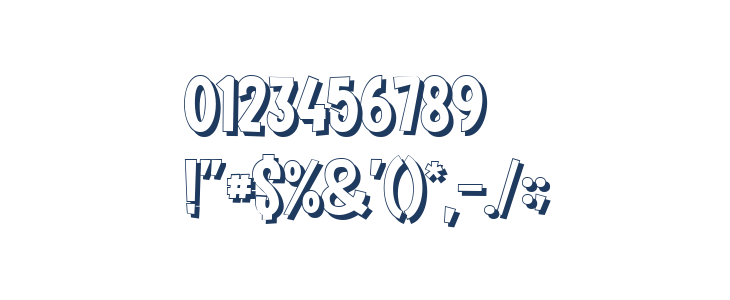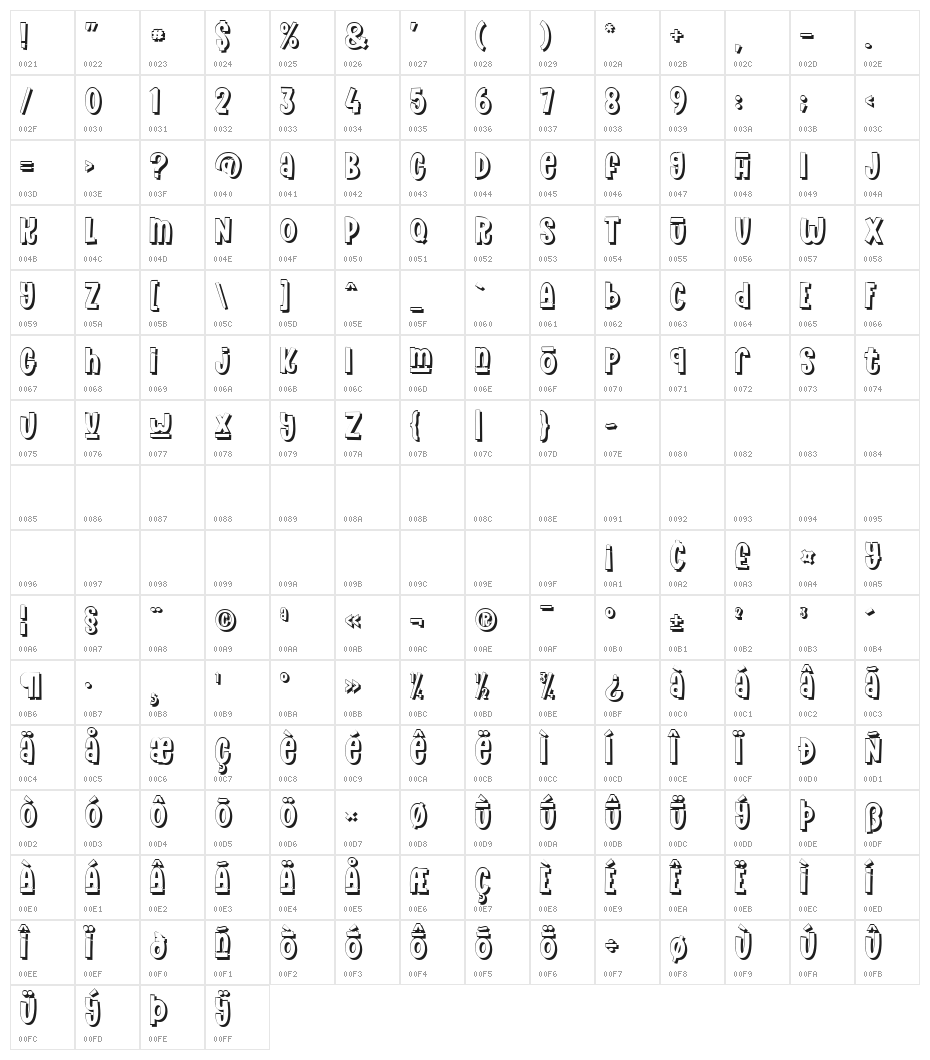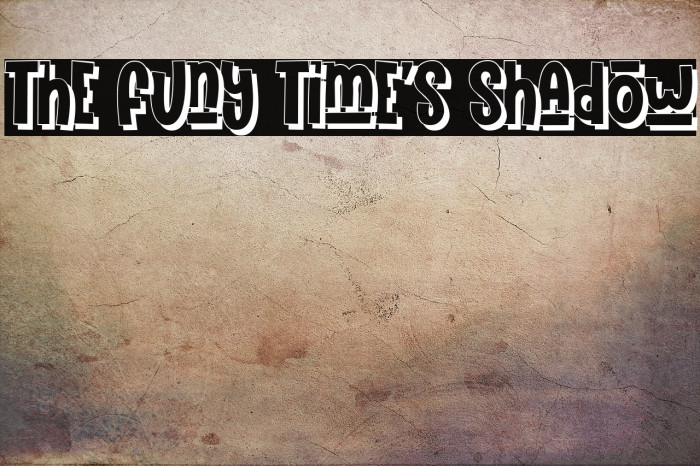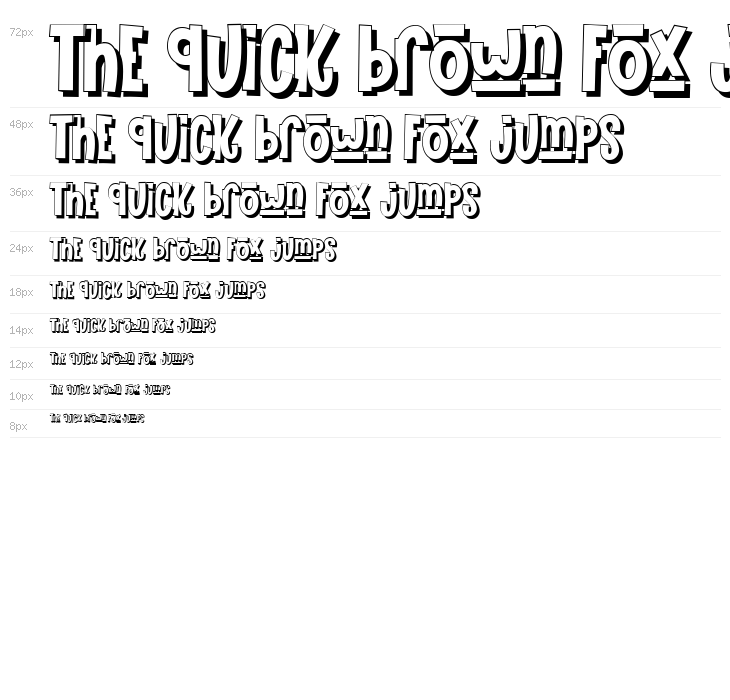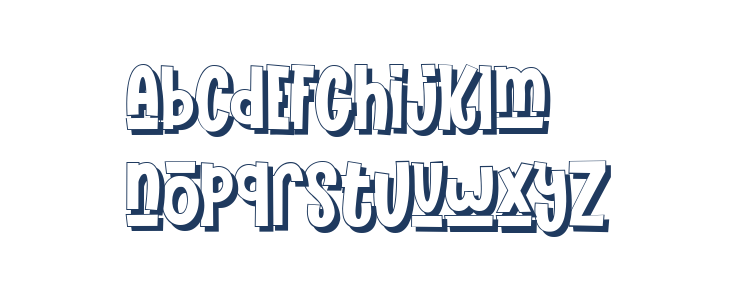
The Funy Time's Shadow Font
The Funy Time's Shadow Description
This playful and bold font features a distinctive shadow effect that adds depth and dimension to each character. The letters are rounded and slightly irregular, giving them a whimsical and fun appearance. The uppercase and lowercase letters maintain a consistent style, with exaggerated curves and a cartoon-like quality. Numbers and special characters are designed to match the playful theme, making this font ideal for projects that require a lively and energetic feel. The shadow effect enhances the visual impact, making it suitable for eye-catching designs.
| Proposed Projects | Ideal for children's books, comic strips, playful branding, and party invitations. |